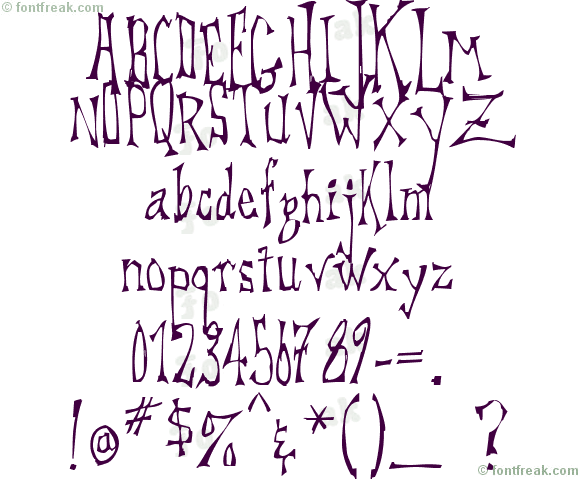
DreadLox
About DreadLox
The DreadLox font, crafted by Stanley Roland Frantz, is a distinctive display typeface that captures a unique, whimsical essence. This decorative font features playful, irregular letterforms that are reminiscent of hand-drawn designs, making it an eye-catching choice for various creative projects. The stroke weight exhibits a bold, uneven quality, contributing to its artistic flair. With a moderate level of contrast and organic spacing between characters, DreadLox ensures legibility while maintaining its quirky personality.
This font excels in a variety of use cases, making it a versatile addition to any designer's toolkit. Its unconventional style is perfect for crafting vibrant movie posters, where it can draw attention and evoke curiosity. DreadLox also shines on music event flyers, helping to create an energetic atmosphere that resonates with audiences. Additionally, it can be effectively utilized in children’s book covers, where its fun and playful aesthetic can engage young readers. For small business owners looking to make a statement, using DreadLox on shop signage can add a unique touch that captures the spirit of their brand.
What sets DreadLox apart is its ability to infuse personality into any design. Its whimsical characteristics and bold style create a memorable impact, ensuring that your message is not only seen but also felt. Embrace the charm of DreadLox, and let your creativity flow.